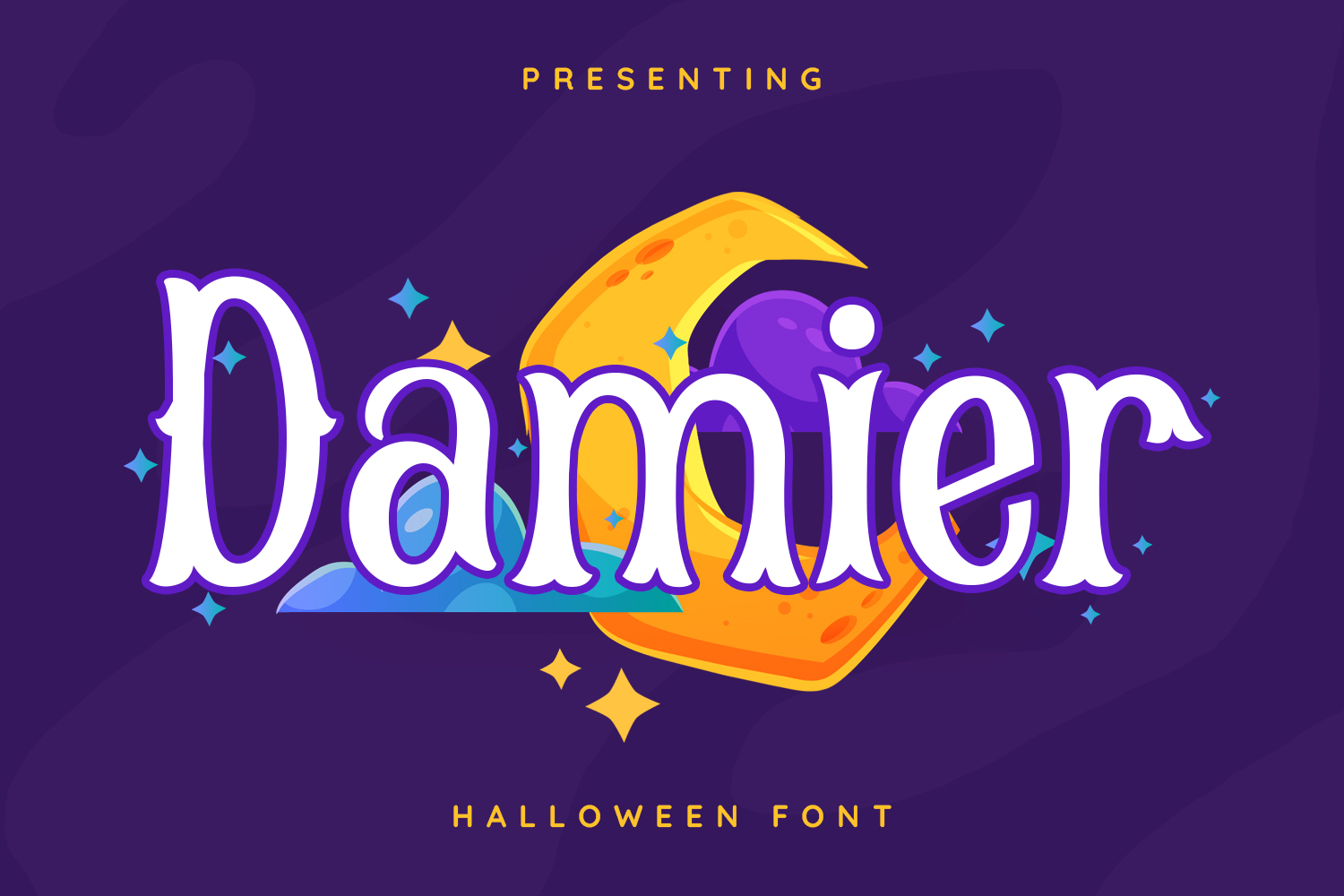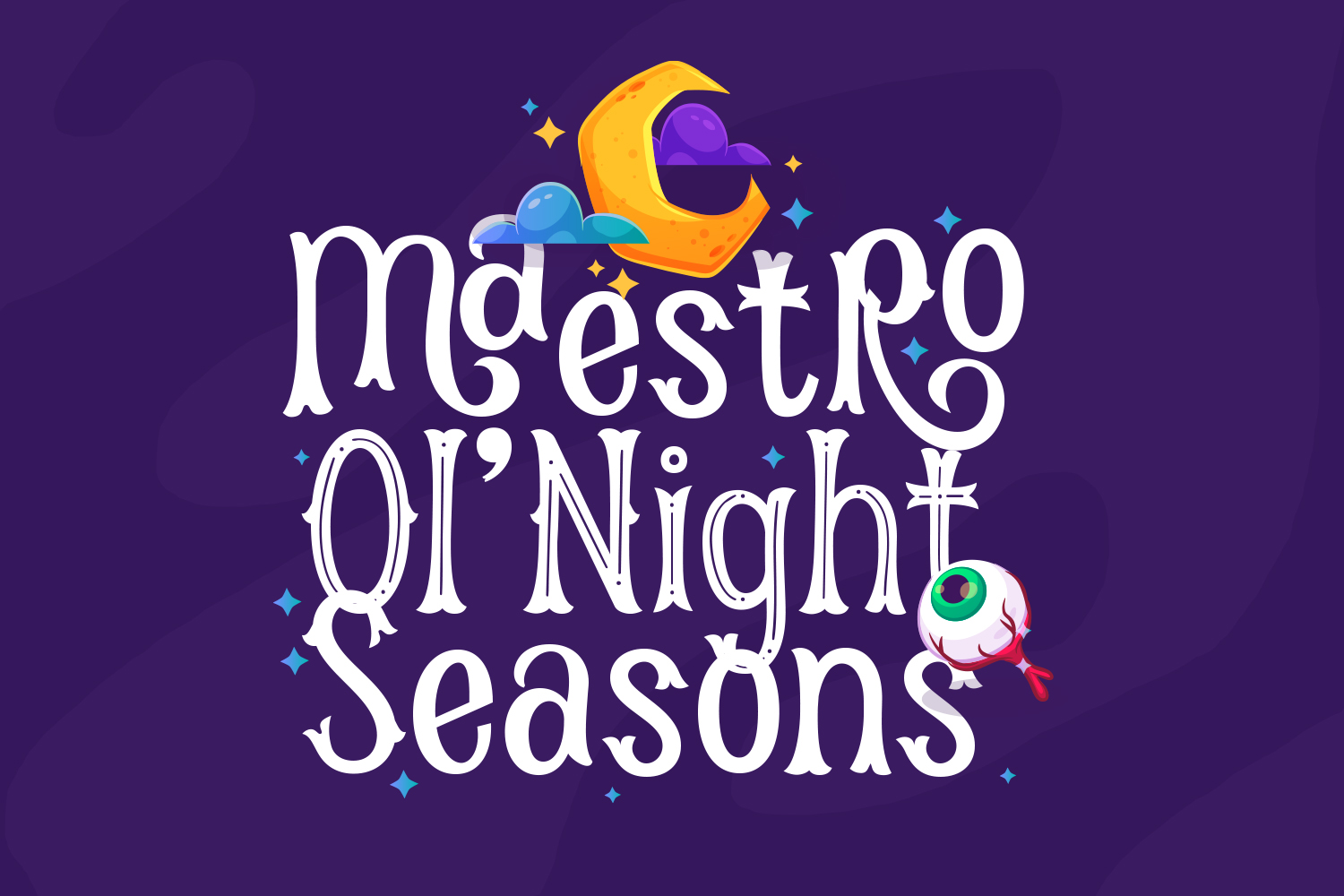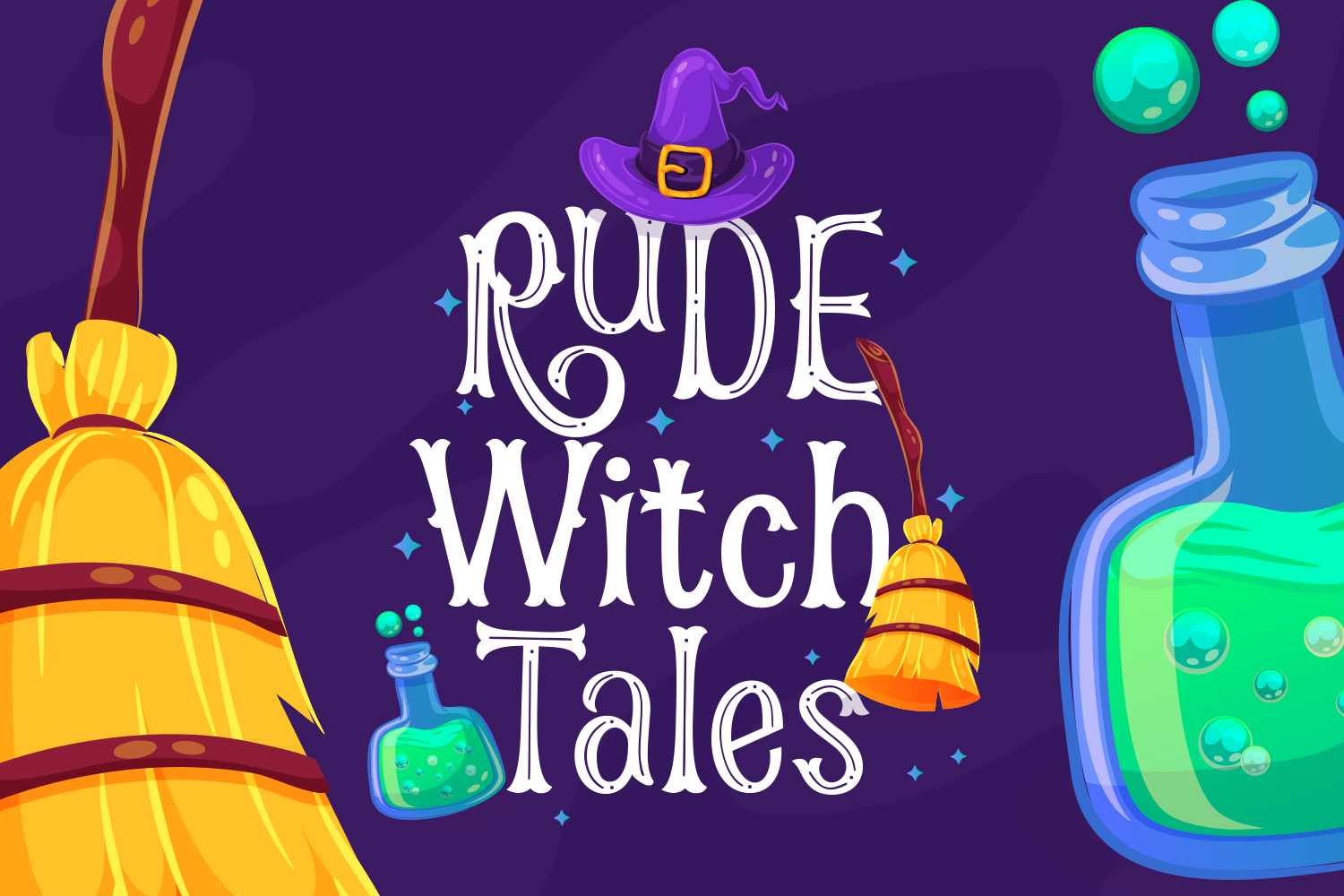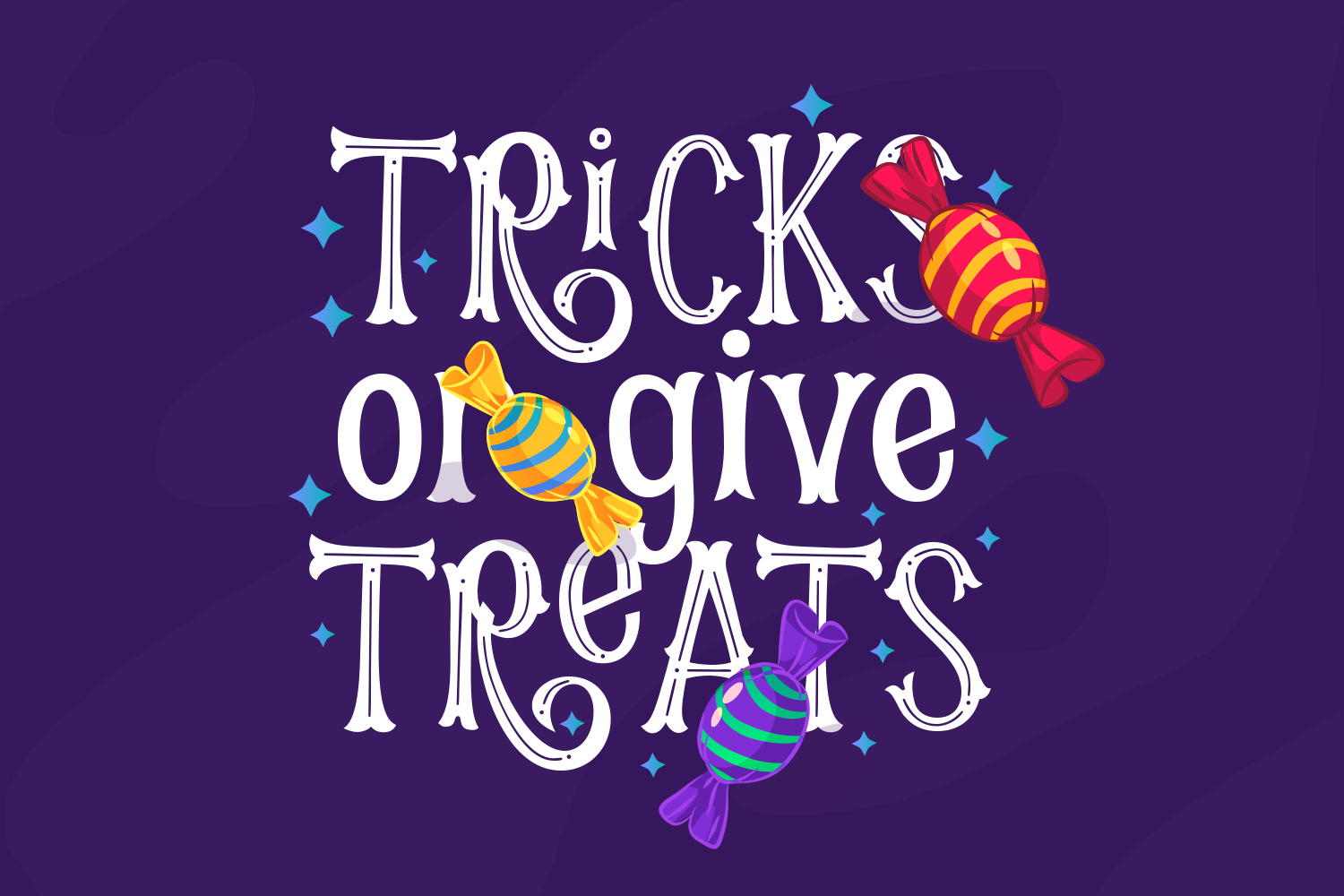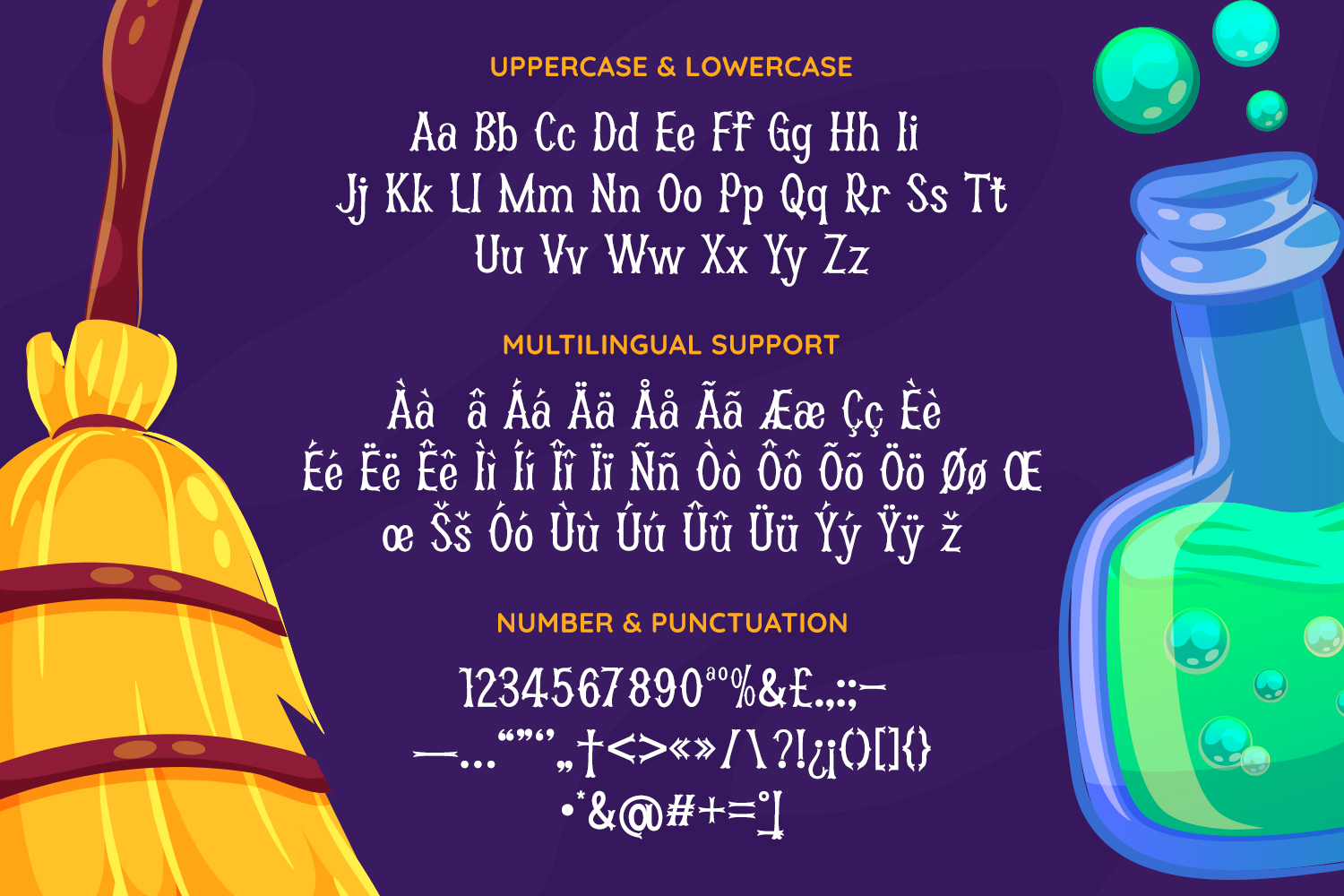
Damier is a fun and whimsical Halloween font that brings a magical and lighthearted twist to spooky designs. With curvy strokes, decorative loops, and a playful structure, Damier is perfect for witchy tales, costume party invites, and children’s Halloween books. Its energetic character and friendly vibe make it ideal for projects that need a dose of spooky charm without being too scary.
The font includes uppercase and lowercase letters, multilingual support, numbers, punctuation, and stylistic alternates. Whether you’re designing candy packaging, enchanted posters, or festive merch, Damier casts a spell of creativity that makes your Halloween projects pop with personality.
Damier